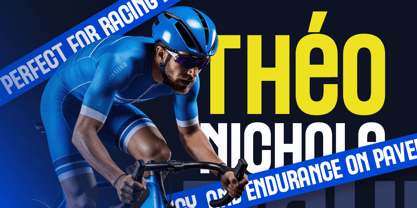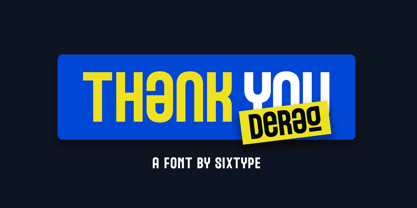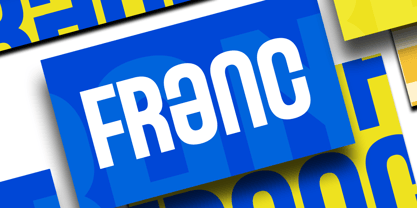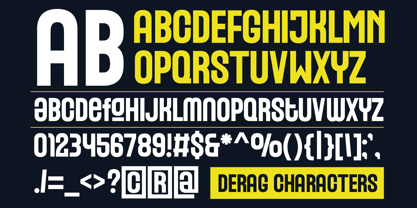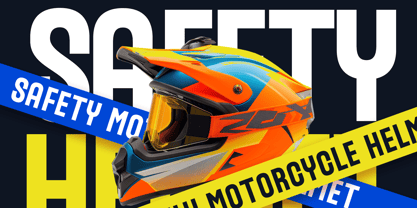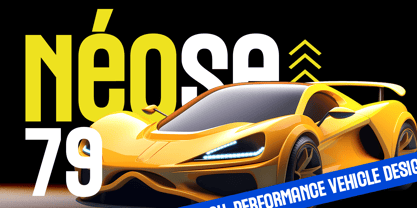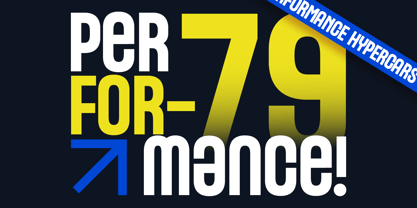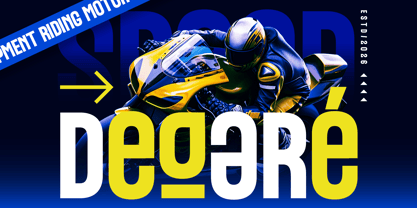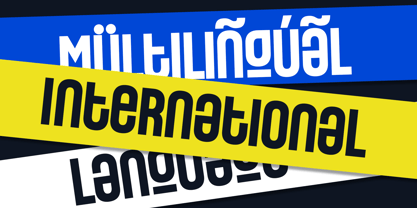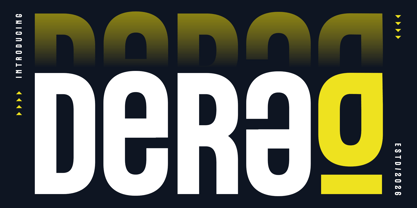
Derag
by Sixtype Foundry
The Derag Font Family and published by Sixtype Foundry. Derag contains 1 styles. More about this family
Derag is a bold modern display typeface that infuses strong character and visual impact into contemporary design projects. Featuring confident letterforms and a balanced structure, Derag offers a clean yet expressive typography style that excels in branding and headline applications. This typeface is crafted for designers seeking a modern font suitable for logo design, branding identity, posters, advertising, packaging, and social media graphics, providing versatility while retaining a distinctive personality. Its robust shapes and contemporary construction make Derag ideal for crafting powerful visual statements across both digital and print design, ensuring your projects stand out with clarity and style.